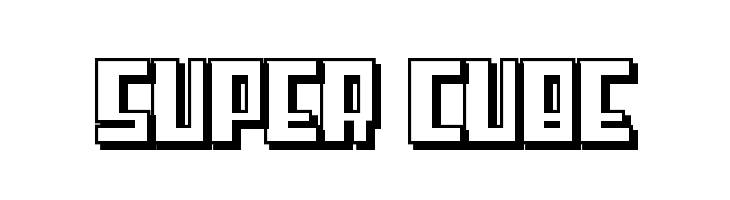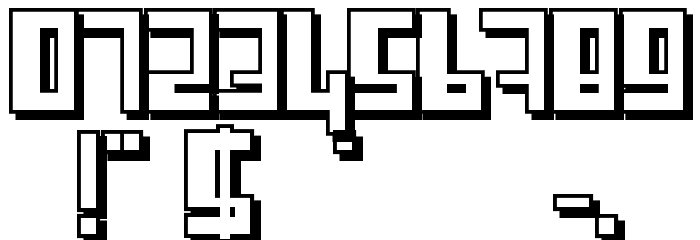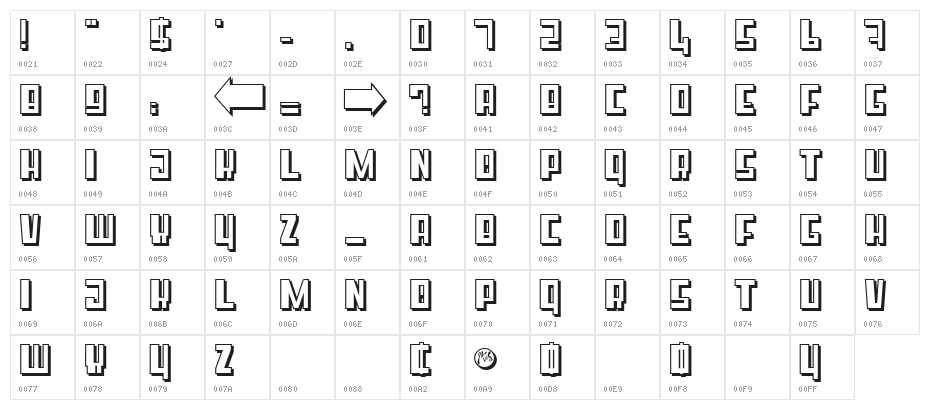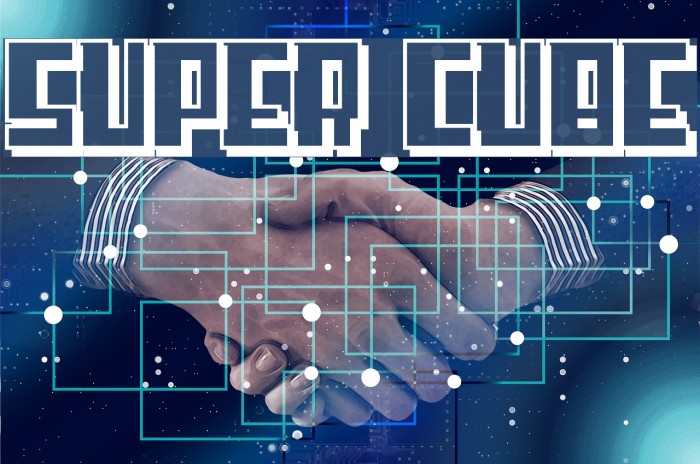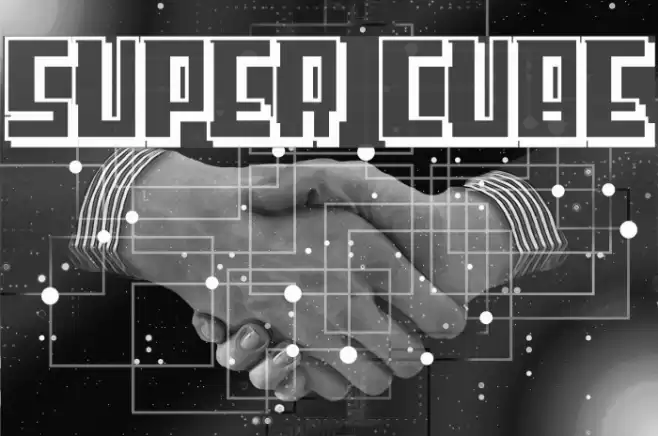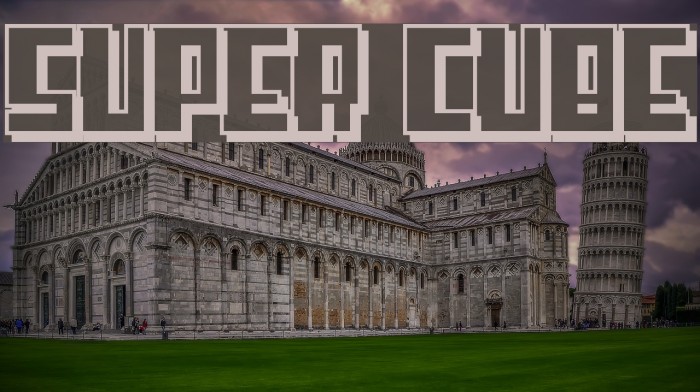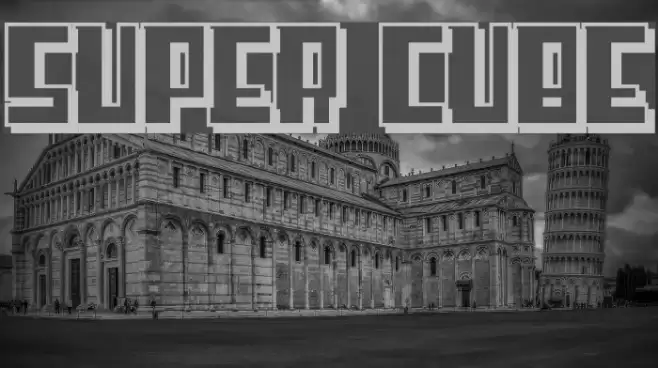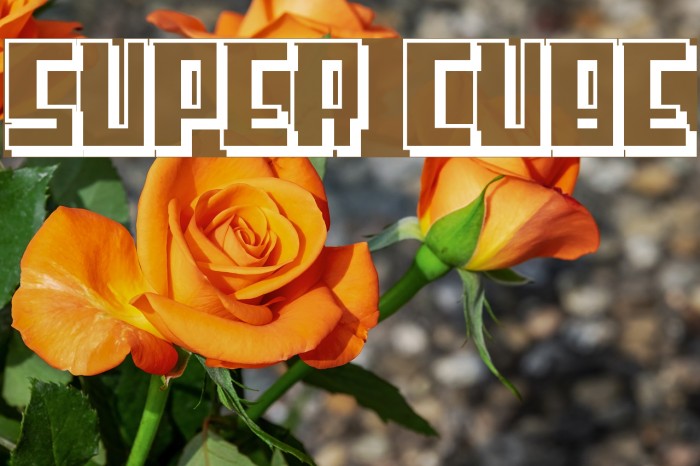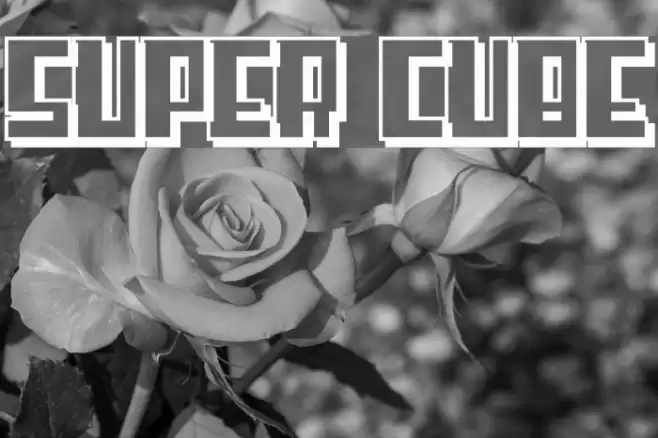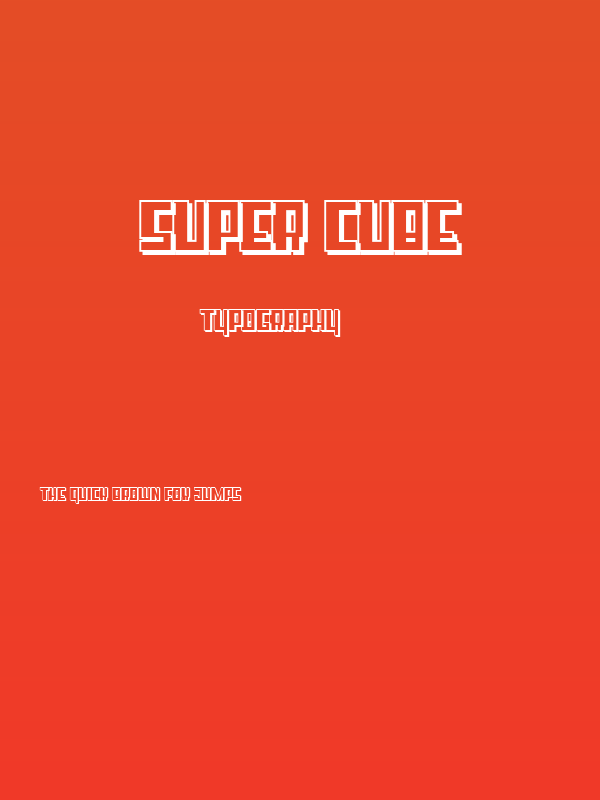
Super cube Font
Super cube Description
This font features a bold, geometric design with a three-dimensional effect that gives each character a blocky, cube-like appearance. The letters are constructed with thick, consistent strokes and sharp angles, creating a strong visual impact. The uppercase and lowercase letters maintain a uniform height, contributing to a cohesive and structured look. Numbers and special characters are designed with the same attention to detail, ensuring they integrate seamlessly with the alphabet. The overall style is modern and futuristic, making it ideal for projects that require a bold and distinctive typeface.
| Proposed Projects | Perfect for video game titles, tech branding, posters, and any project needing a strong, modern aesthetic. |